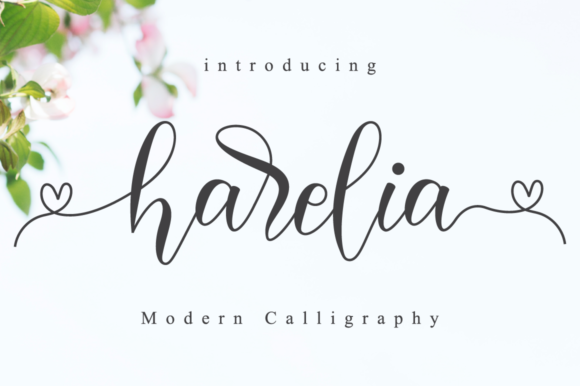
Where Creativity Meets Elegance: The Story of Harelia Script Font
There’s nothing quite like the feeling of seeing a design come to life, and it’s often in those moments of pure creativity that we stumble upon something truly special. For designers and artists, the search for the perfect font is a never-ending quest, and it’s not uncommon to find ourselves lost in a sea of options. But what if I told you that there’s a font out there that’s not only stylish but also authentic, with a unique feel that sets it apart from the rest?
Meet Harelia Script Font, a handwritten font that exudes elegance and sophistication. Its organic swashes are sure to captivate your senses and transport you to a world of beauty and refinement. Whether you’re a seasoned designer or just starting out, this font is an absolute must-have in your toolkit. Its versatility and authenticity make it a valuable addition to any design project, and its unique feel is sure to leave a lasting impression on your audience.
- Unique Characteristics: Elegant and cursive script font with intricate details and flourishes, ideal for creative and artistic applications
Harelia Script Font Review
Harelia Script Font is a beautiful and elegant script font that can add a touch of sophistication to any design project. ✨ One of the things that works well is its versatility – it can be used for a wide range of applications, from wedding invitations to branding materials. The font is also highly customizable, with a wide range of options for adjusting font size, color, and style.
- ✨ Beautiful and elegant design that adds a touch of sophistication to any design project
- ✨ Highly customizable with a wide range of options for adjusting font size, color, and style
- ✨ Versatile and can be used for a wide range of applications
However, there are also some limitations to consider. ⚠️ One of the main limitations is that the font can be quite difficult to read in certain contexts, particularly in smaller font sizes. Additionally, the font may not be suitable for use in headlines or titles, as it can be quite elaborate and may be difficult to read at large sizes.
Overall, I think Harelia Script Font is a great choice for designers who want to add a touch of elegance and sophistication to their projects. While it may have some limitations, it is a versatile and highly customizable font that can be used in a wide range of applications.
- ⚠️ Can be difficult to read in certain contexts, particularly in smaller font sizes
- ⚠️ May not be suitable for use in headlines or titles
Tips for Getting the Most Out of Harelia Script Font
Use Harelia Script Font for titles, headings, and quotes to add a touch of elegance and sophistication to your designs. Experiment with different font sizes and colors to create a visually appealing effect.
Harelia Script Font is ideal for wedding invitations, greeting cards, and other special occasion designs. It’s also great for adding a touch of luxury to business presentations and marketing materials.
Q: What is the recommended font size for Harelia Script?
The recommended font size for Harelia Script depends on the intended use and the desired visual impact. For body text, a font size between 12-14 points is suitable. For headings, a font size between 18-24 points is recommended. You can adjust the font size to suit your design needs, but be aware that smaller font sizes may become difficult to read.